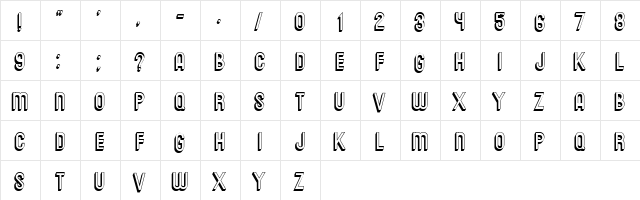
Messages Regular
Design Context for Messages Typeface
Messages is a composed and adaptable typeface that performs quietly and consistently across a wide range of design contexts.
Pro Tip: Pair Messages with a font of contrasting weight or personality to build a more expressive typographic hierarchy.